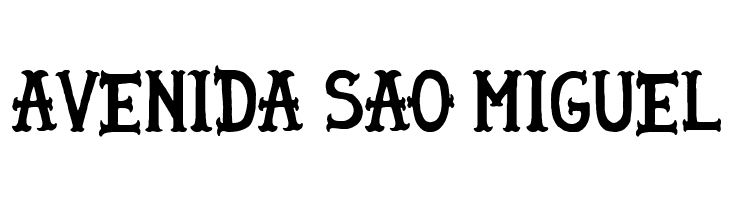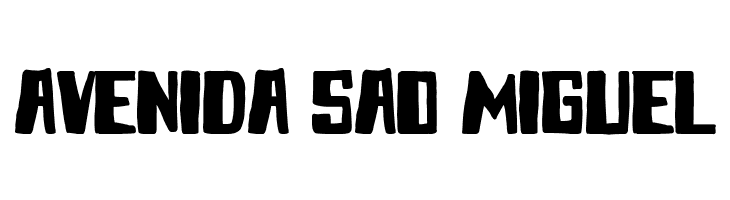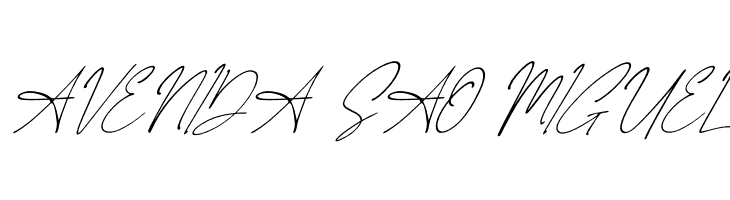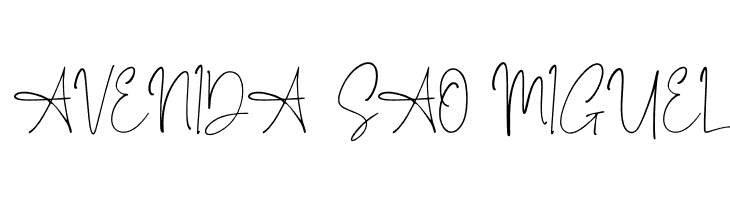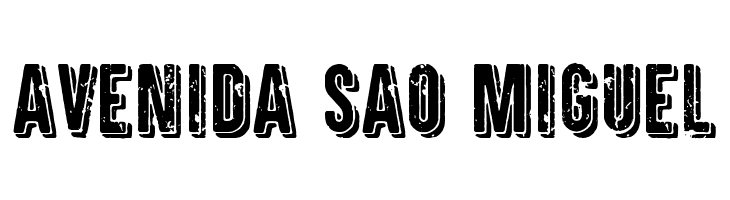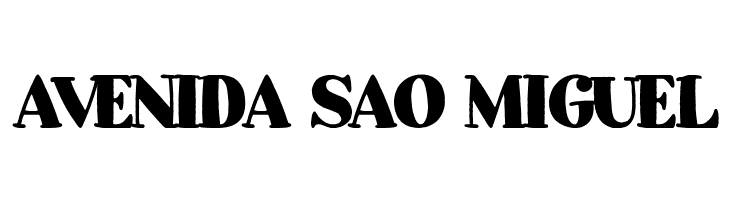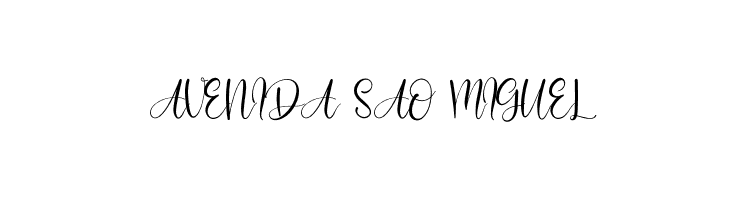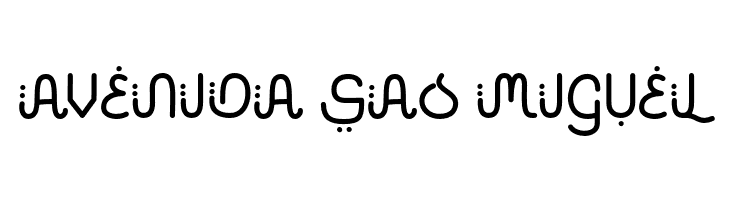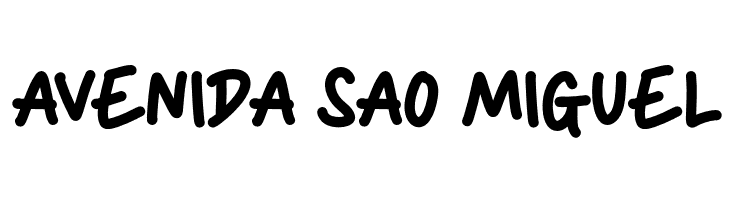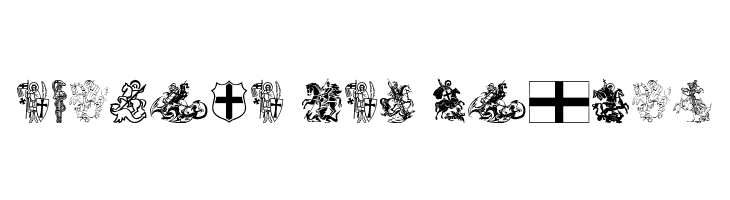
A playful, bold handwritten font with thick strokes and rounded edges.
A modern, geometric font with sharp angles and consistent stroke width.
A dynamic, angular font with a futuristic and sporty design.
A bold, angular font with a futuristic and geometric style.
A modern, geometric font with sharp, angular lines and a futuristic aesthetic.
A bold, angular font with a futuristic and dynamic design.
A bold, geometric font with angular, modern design.
A bold, high-contrast serif font with a vintage yet modern style.
A flowing, elegant script font with a refined, italic style.
A graceful, handwritten script font with elegant, flowing lines.
An elegant, flowing script font with a sophisticated, handwritten style.
Ornate, symbolic font reminiscent of ancient or mystical iconography.
A bold, distressed font with a rugged, vintage look.
A bold, flowing script font with smooth, connected letters and a playful bounce.
Ornate, illustrative font with unique character drawings.
A playful, decorative font with rounded edges and whimsical accents.
A dynamic, angular font with a calligraphic influence and high contrast strokes.
A bold, hand-drawn font with a vintage and rustic charm.
A bold, decorative font with a nautical tattoo-inspired design.
A bold, rugged font with a vintage, tattoo-inspired style.
An elegant script font with flowing, interconnected characters and intricate swashes.
A classic serif font with elegant, sharp serifs and moderate contrast.
An elegant and decorative serif font with intricate swirls and embellishments.
A pictorial display font featuring Saint George, dragons, shields, and flags.
A bold, high-contrast serif font with elegant and festive decorative elements.
A bold serif font with a unique star motif, combining elegance and creativity.
A bold, playful font with a hand-drawn aesthetic.
A decorative icon set themed around love and Valentine's Day.
A bold, distressed font with a vintage, rustic appearance.
A bold, modern sans-serif font with thick strokes and tight spacing.
A bold, sans-serif font with thick, uniform strokes and tight spacing.
A modern, light sans-serif font with tall, narrow characters.
A modern, medium-weight sans-serif font with a sleek and professional appearance.
A sleek, ultra-thin sans-serif font with a modern and minimalist design.